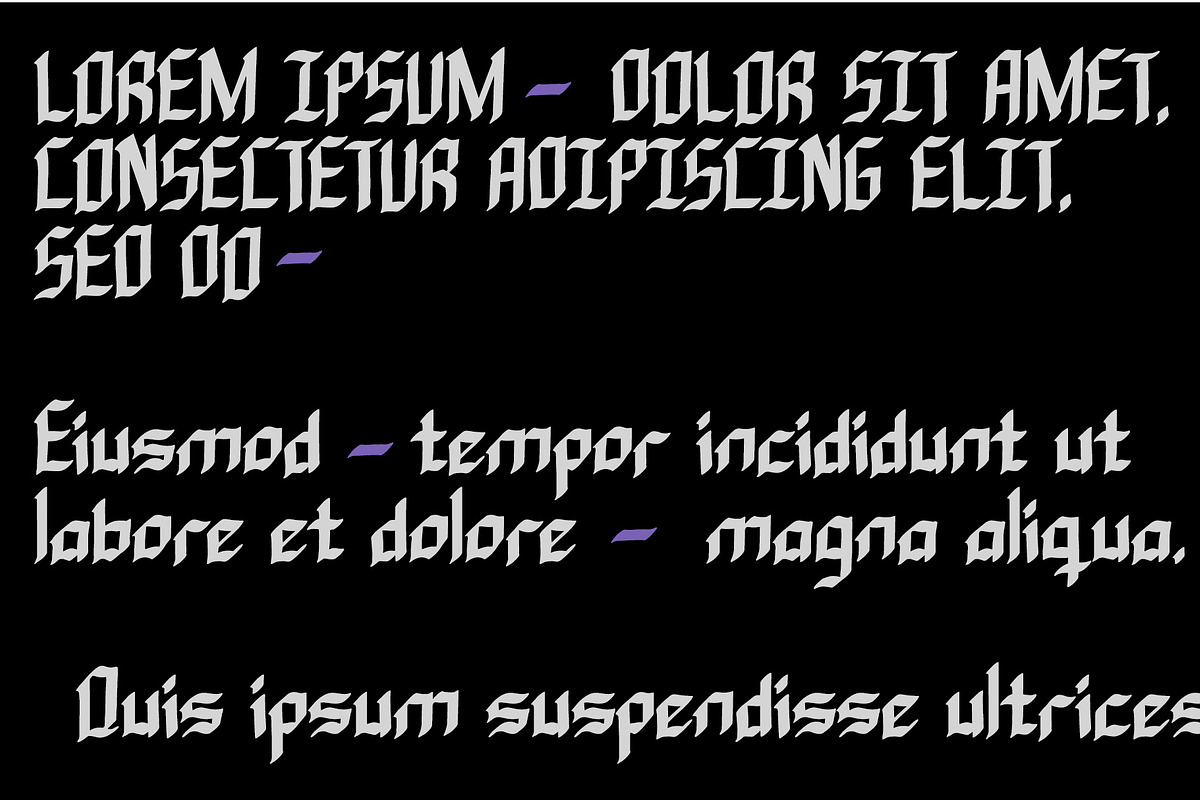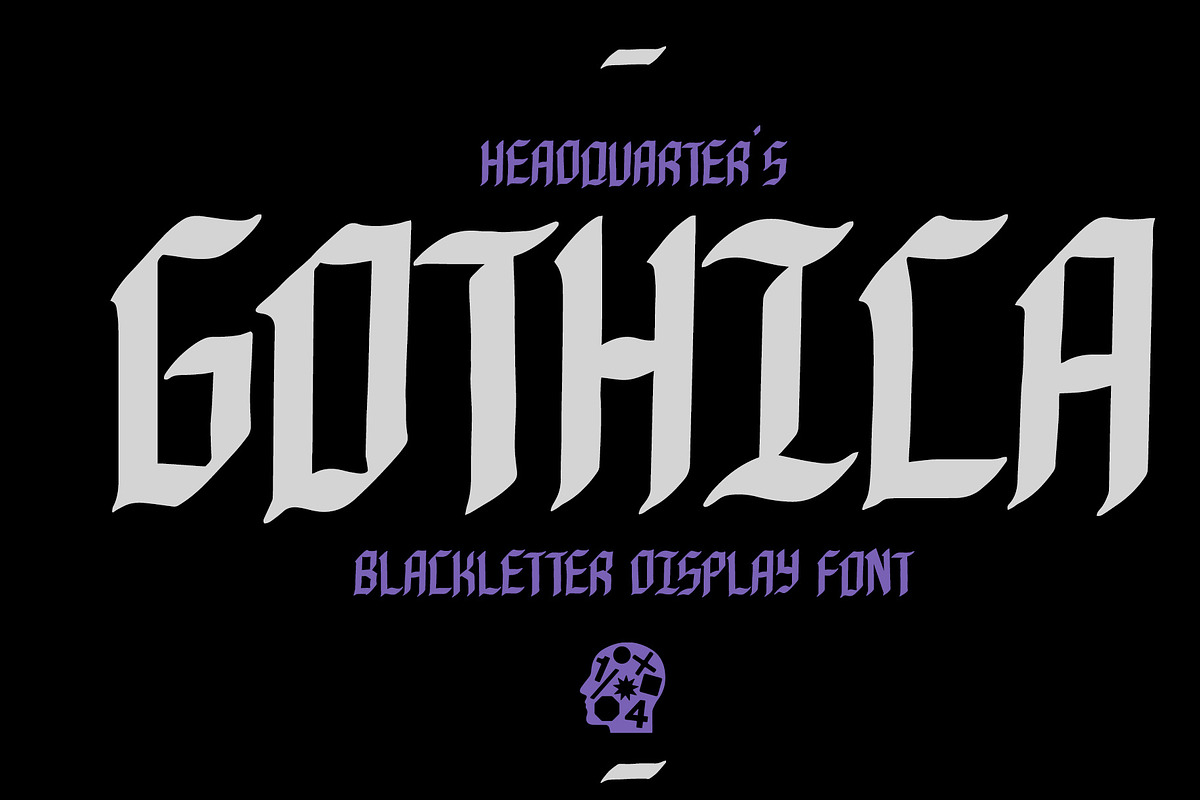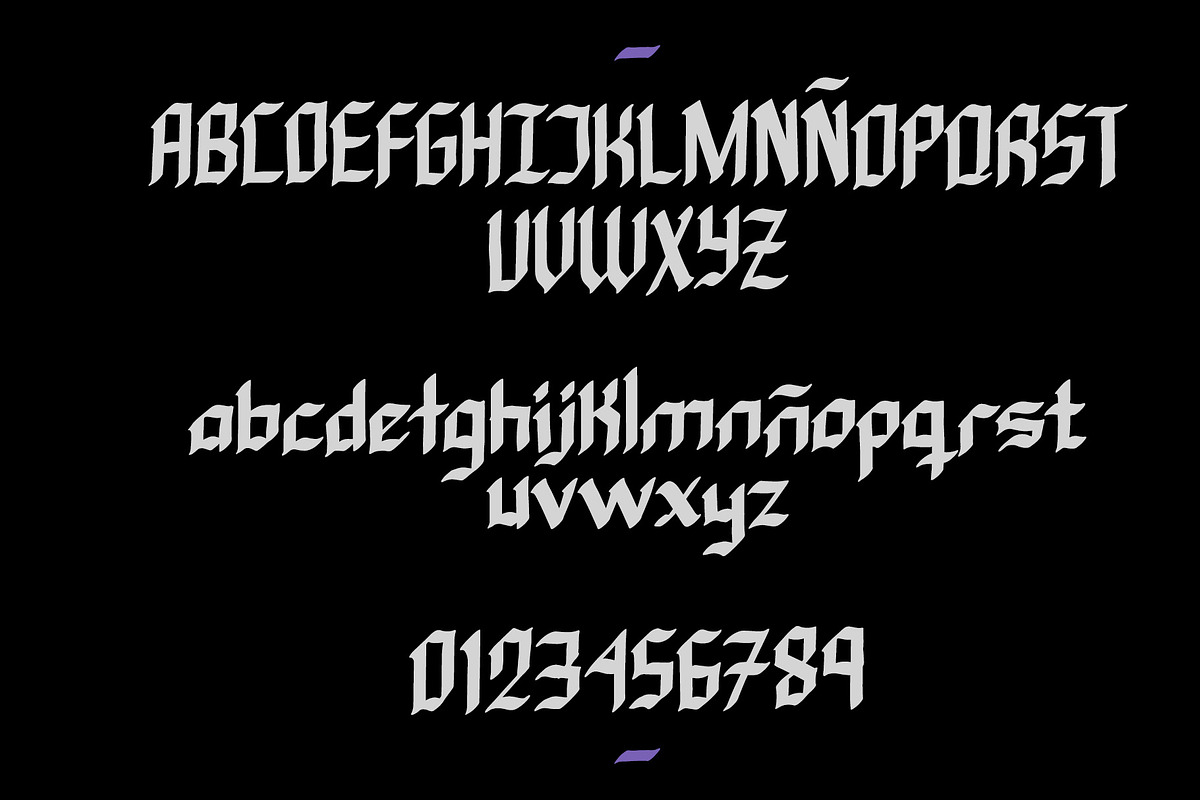
GOTHICA
"Gothica" is a captivating blackletter typeface that beautifully resurrects the grandeur of medieval script for the modern era. Meticulously crafted with an eye for historical authenticity, Gothica showcases the ornate intricacies and dramatic flair characteristic of traditional Gothic calligraphy.
Its elegant, sweeping curves and sharp, pointed serifs evoke a sense of old-world majesty, making it perfect for projects that require a touch of regal and historical elegance. Ideal for book covers, period-themed branding, and artisanal product labeling,Gothica is not just a font but a portal to a bygone era, infusing your designs with the mystique and nobility of medieval craftsmanship.